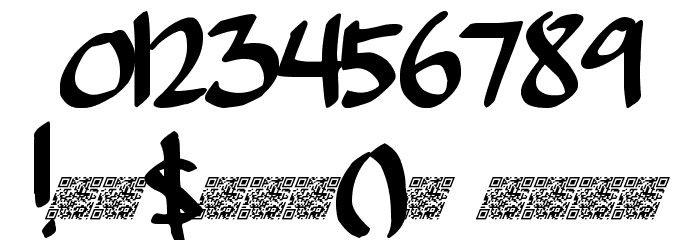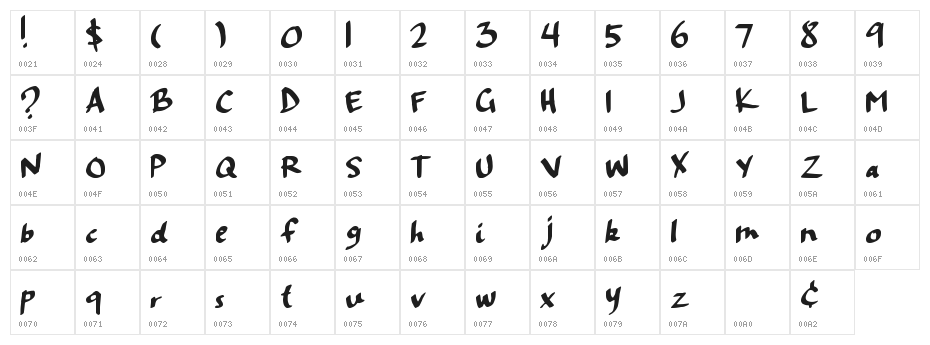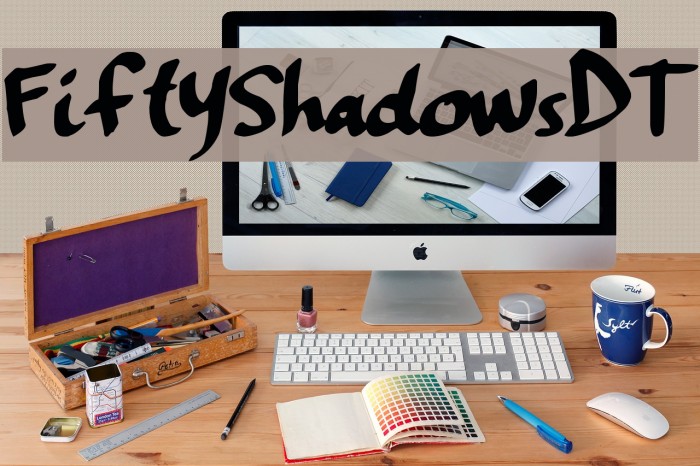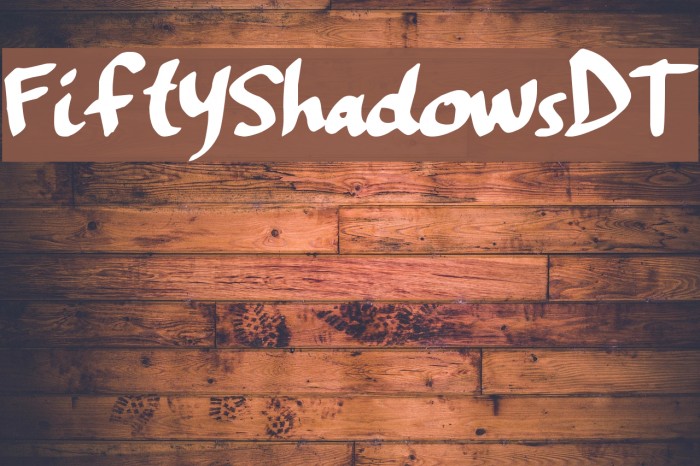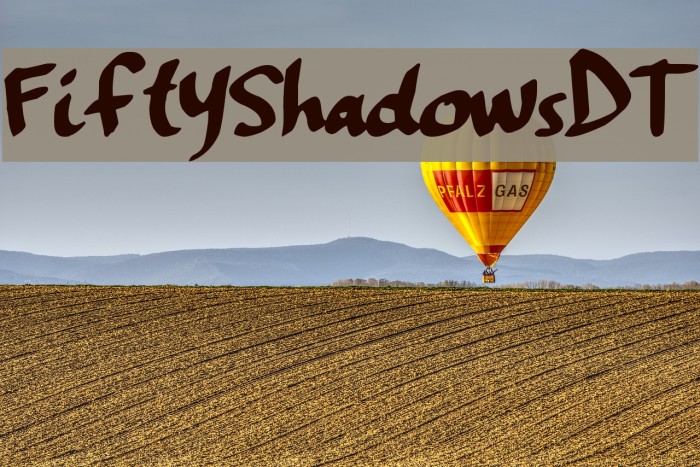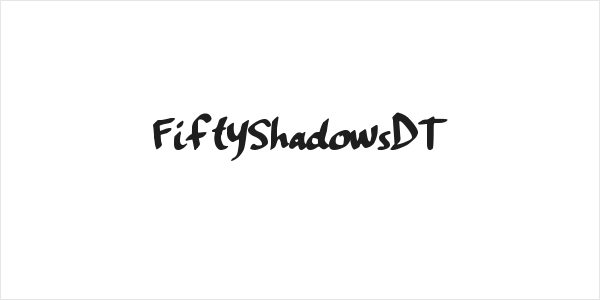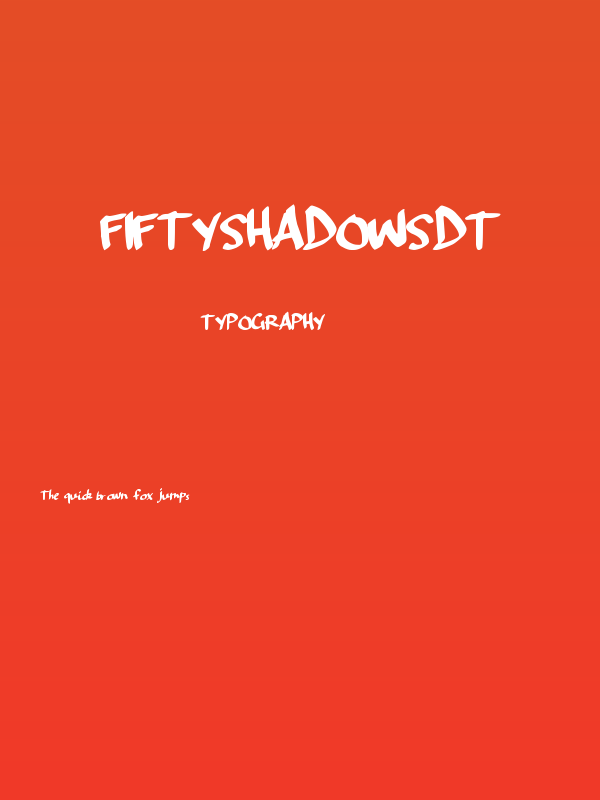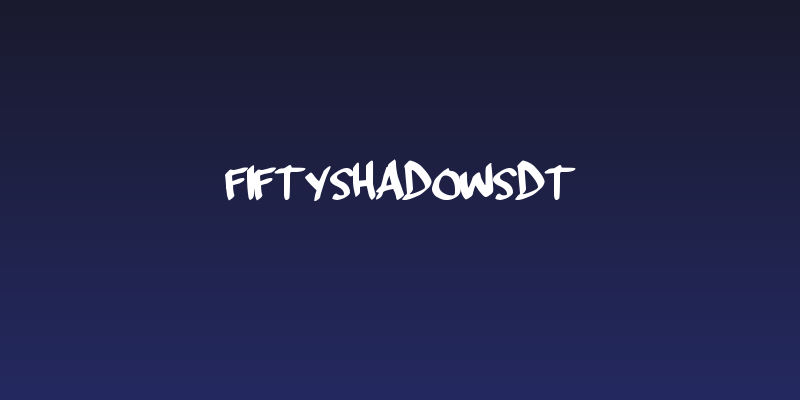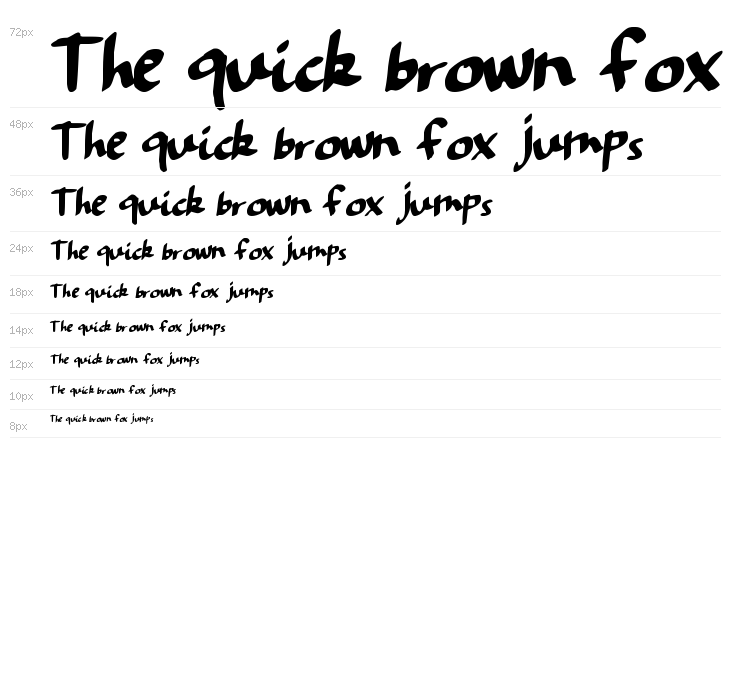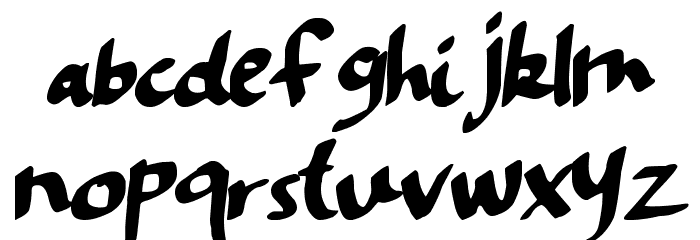
FiftyShadowsDT Font
FiftyShadowsDT Description
This font exhibits a bold and dynamic handwritten style, characterized by its energetic and slightly irregular strokes. The uppercase letters are bold and assertive, while the lowercase letters maintain a playful and casual appearance. The numbers are consistent with the overall style, offering a sense of movement and fluidity. Special characters are integrated seamlessly, maintaining the font's lively and expressive nature. The overall design suggests a sense of spontaneity and creativity, making it suitable for projects that require a personal and informal touch.